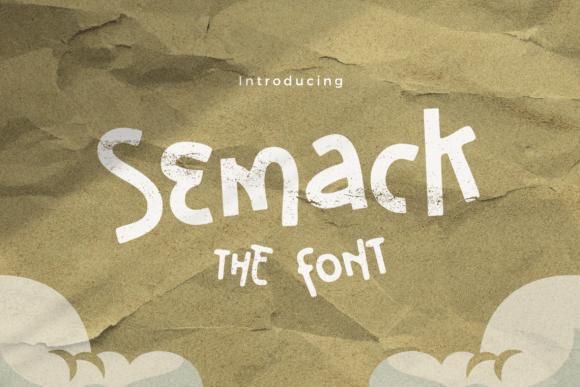
Discover the Unique Charm of Semack Font: Elevate Your Projects with a Handwriting Font Like No Other
In the realm of typography, few fonts manage to capture the essence of creativity and spontaneity as effectively as Semack. This handwriting font, with its distinctive style, has been making waves in the design community for its ability to add a touch of personality to any project. Whether you’re a seasoned designer or a novice looking to make a statement, Semack offers a unique blend of style and versatility that is hard to find elsewhere.
What Makes Semack Stand Out?
At the heart of Semack’s appeal is its expertly curated design, which presents an alluring blend of regular and blurred variants. This flexibility allows designers to choose the perfect version of the font for their project, whether they need a crisp, clean look or a more artistic, dreamy feel. The combination of these two styles within the Semack font family caters to a wide array of creative needs, making it an incredibly versatile tool for designers.
Semack’s naturally fluid shapes and unconventional letterforms are key to its charm. Unlike more traditional fonts that prioritize precision and uniformity, Semack candidly mimics the erratic beauty of manual script. This gives the font a sense of spontaneity and creativity, making it perfect for projects that demand a personal touch. When you use Semack, you’re not just selecting a font; you’re embracing a way to communicate that’s more intimate and engaging.
The Benefits of Using Semack in Your Designs
So, why should you choose Semack for your next project? The answer lies in its unique ability to connect with audiences on a more personal level. In a digital world where uniformity and sameness are often the norm, Semack offers a refreshing change of pace. Its playful vibe and dynamic verve make it an excellent choice for designers looking to make a lasting impression.
- Versatility: With both regular and blurred variants, Semack can be used across a wide range of projects, from digital media to print materials.
- Uniqueness: Semack’s handwriting style ensures that your project stands out from the crowd, capturing the attention of your audience.
- Emotional Connection: The font’s spontaneous and creative feel helps create an emotional connection with your audience, making your content more relatable and engaging.
Whether you’re working on a branding project, a website design, or marketing materials, Semack provides the distinctive appeal and lasting intrigue needed to elevate your work. Its ability to convey a sense of creativity and spontaneity makes it an invaluable asset for any designer looking to push the boundaries of conventional design.
Practical Applications of Semack Font
Semack’s versatility means it can be used in a variety of practical applications. Here are some of the most effective ways to integrate Semack into your designs:
- Branding: Use Semack to create a unique and memorable brand identity that stands out from the competition.
- Website Design: Add a personal touch to your website with Semack, making it more engaging and user-friendly.
- Marketing Materials: From brochures to flyers, Semack can help your marketing materials leave a lasting impression.
- Social Media Graphics: Elevate your social media presence with eye-catching graphics that showcase your creativity.
The key to effectively using Semack is to understand its strengths and how they can be leveraged to enhance your project. By embracing the unique qualities of Semack, you can create designs that are not only visually appealing but also deeply engaging.
Tips for Effective Use of Semack Font
To get the most out of Semack, consider the following tips:
- Mix and Match: Combine Semack with other fonts to create a visually appealing contrast that adds depth to your design.
- Play with Sizes: Experiment with different font sizes to emphasize certain elements and create a hierarchy of information.
- Utilize Colors: Take advantage of Semack’s versatility by using it in various colors to match your brand’s aesthetic or project requirements.
By experimenting with Semack and understanding its capabilities, you can unlock new creative possibilities and take your designs to the next level.
Semack font is more than just a handwriting font; it’s a tool for creativity and self-expression. Its unique blend of regular and blurred variants, fluid shapes, and unconventional letterforms make it an invaluable asset for designers looking to add a touch of personality to their projects. Whether you’re aiming to create a distinctive brand identity, design an engaging website, or produce eye-catching marketing materials, Semack offers the versatility and charm needed to make your project shine.
Embracing Semack is embracing a design philosophy that values creativity, spontaneity, and connection. It’s about recognizing the power of typography to communicate on a deeper level and choosing a font that can help you achieve that. With Semack, you’re not just selecting a font; you’re choosing a partner in your creative journey, one that can help you leave a lasting impression on your audience.